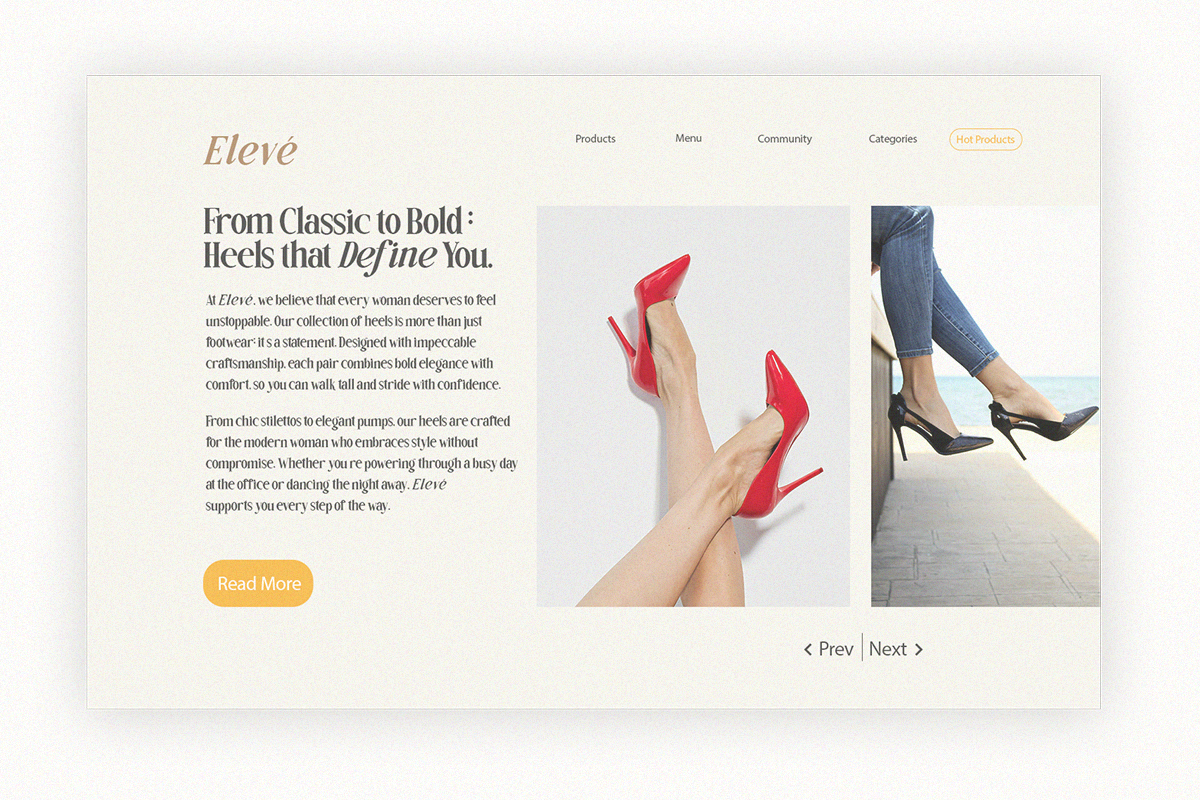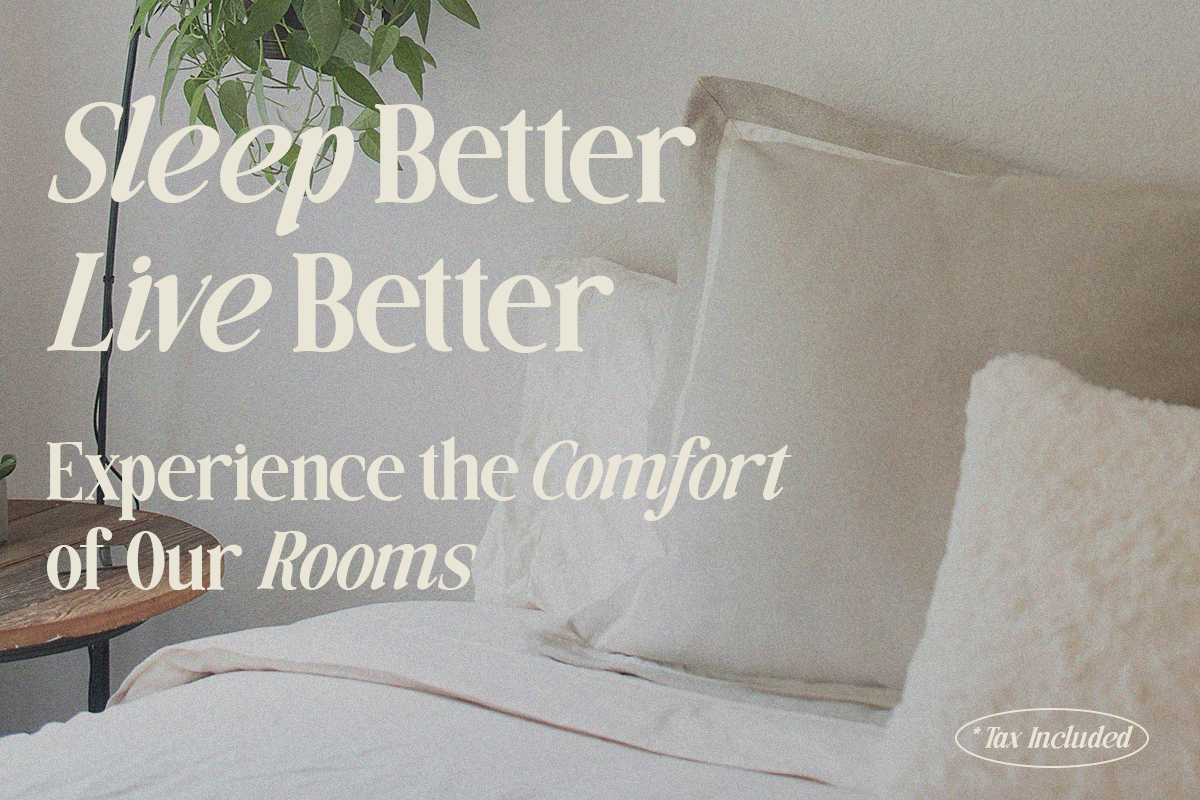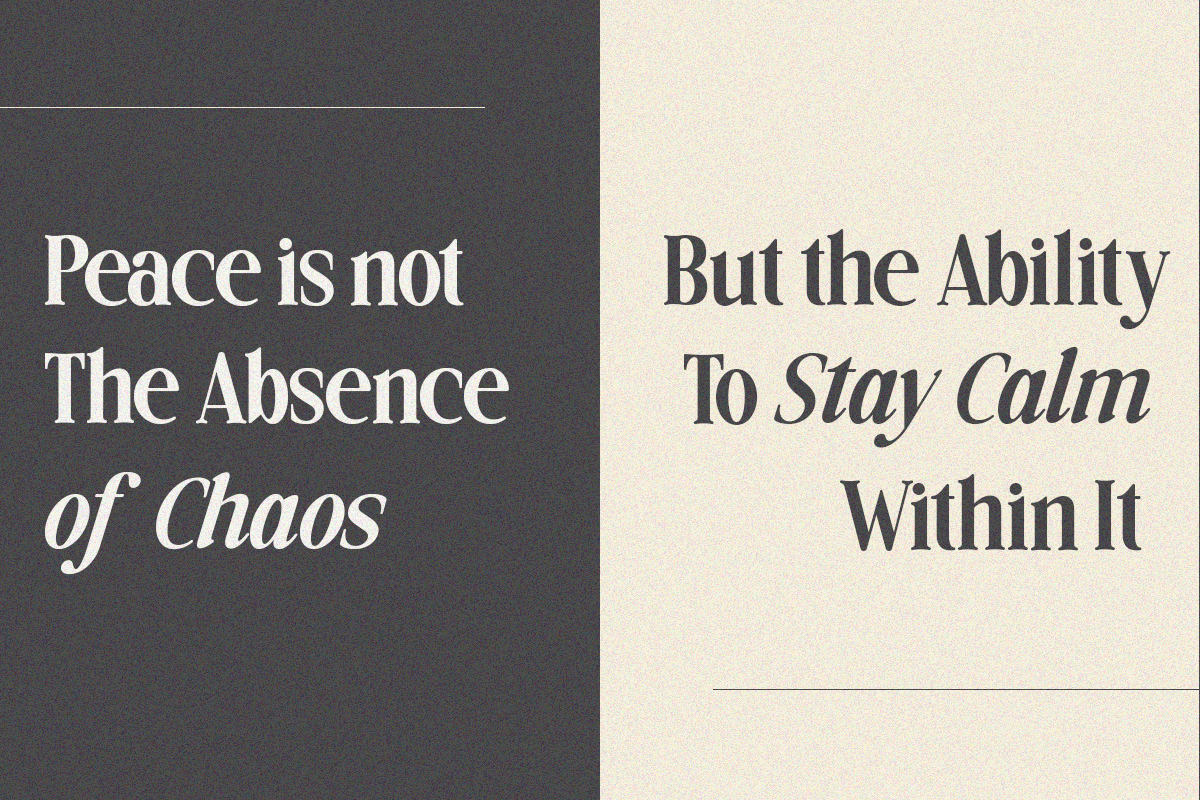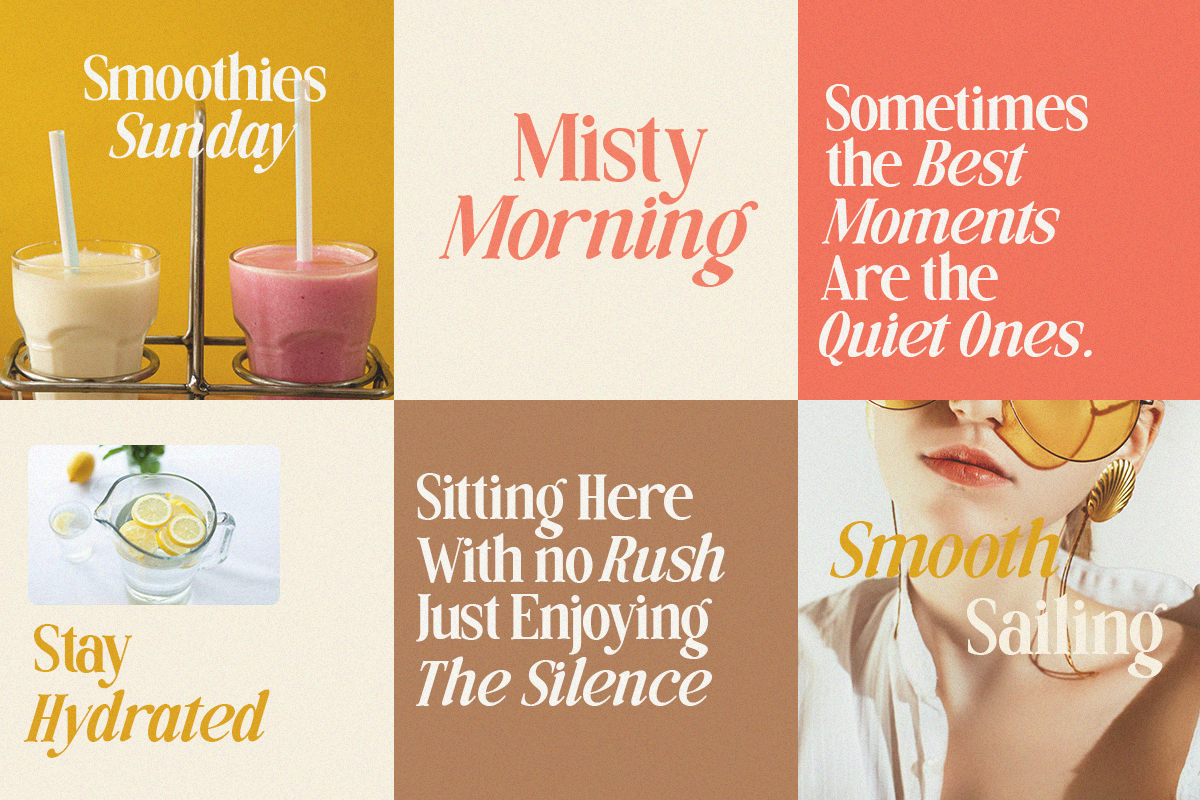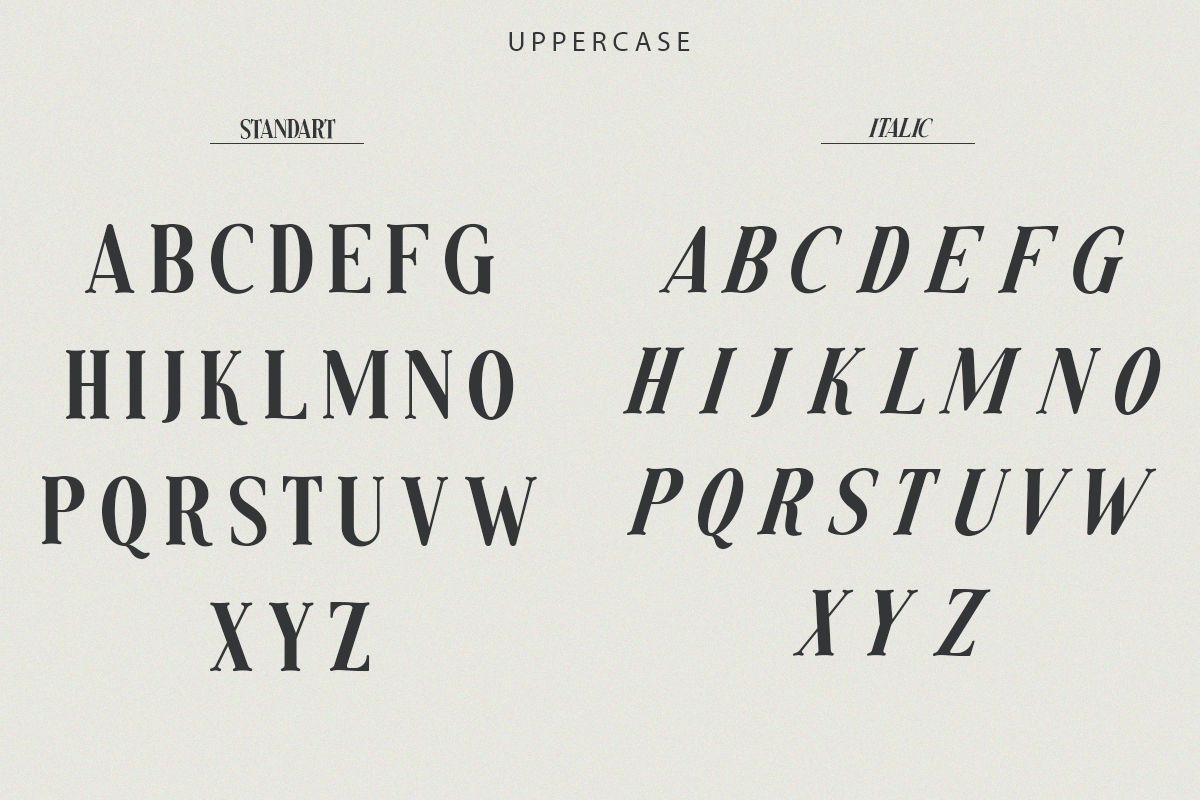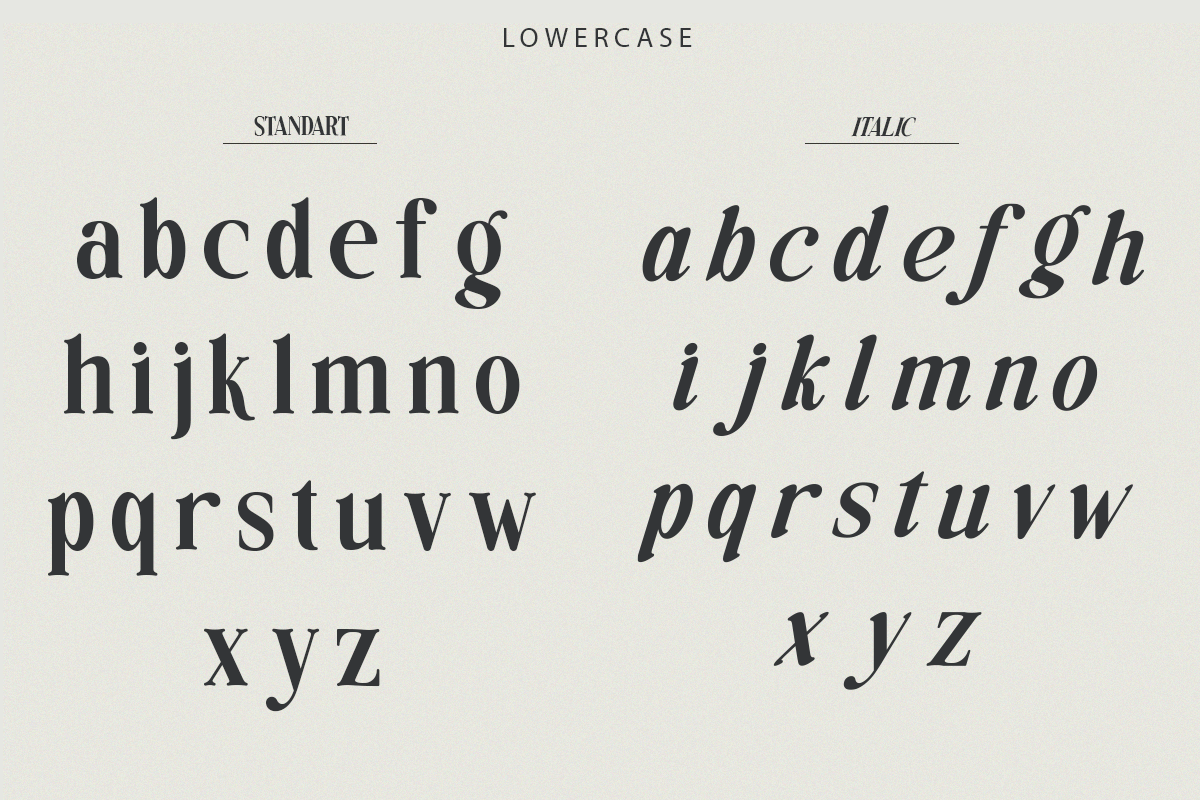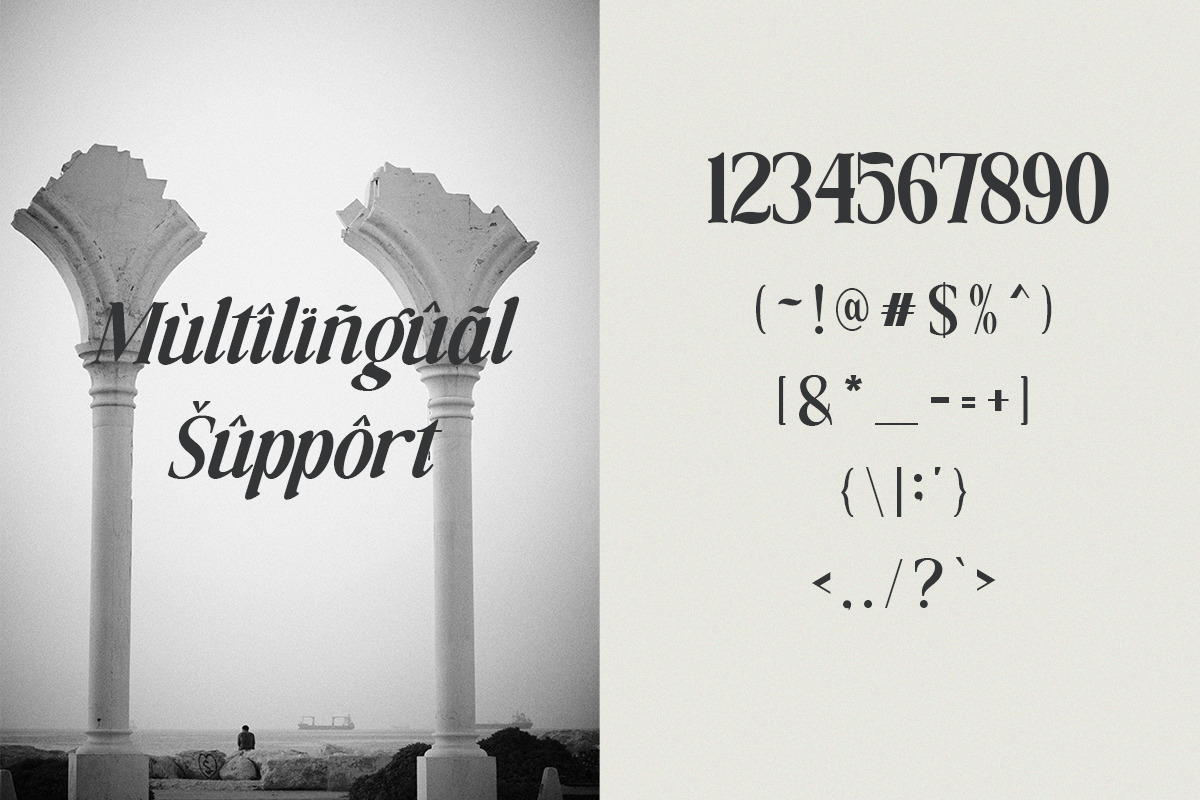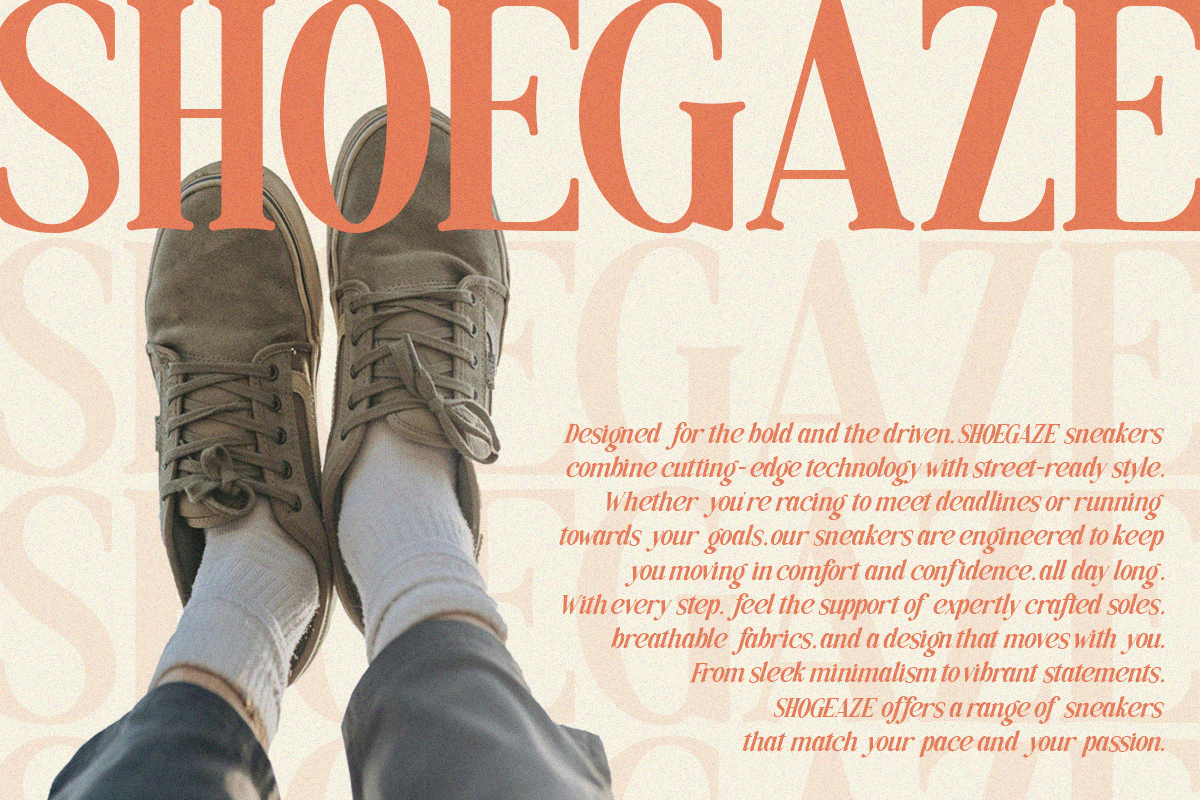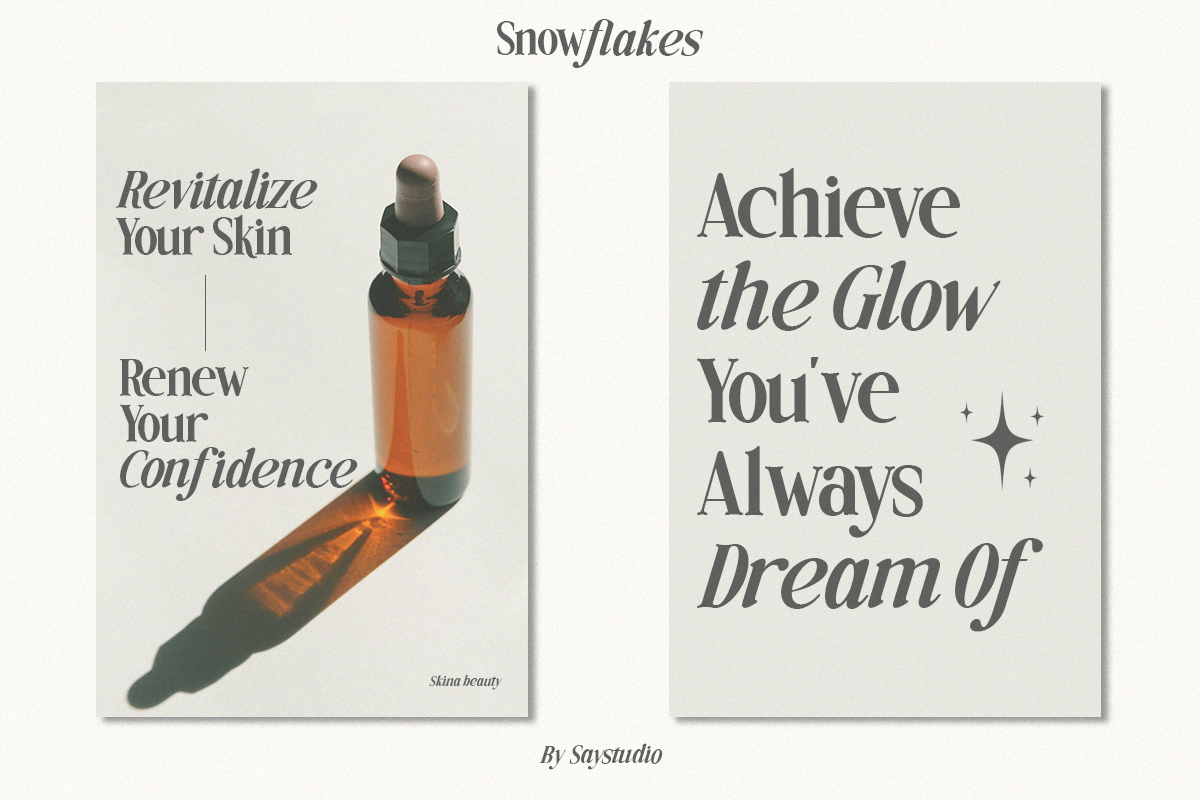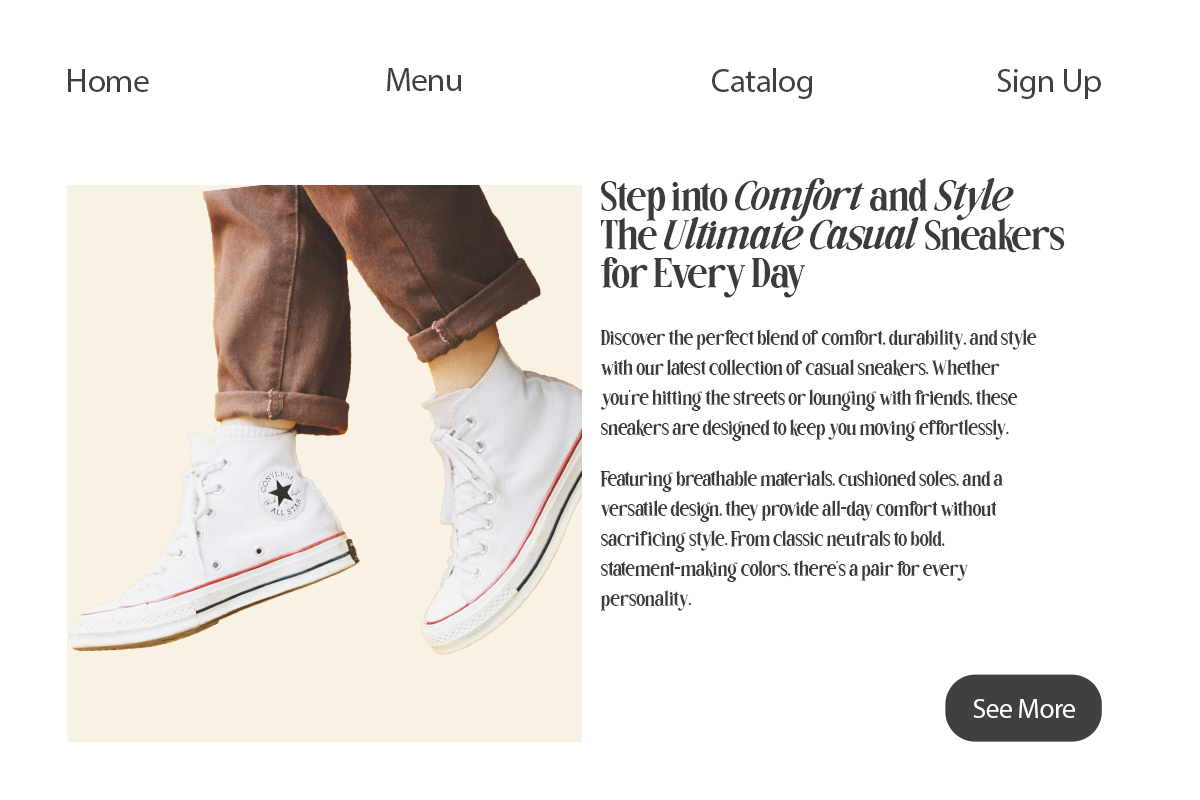
Snow Flakes - Nostalgic Serif Font
Snow Flakes is an nostalgic serif with a feminine style. This beautiful collection comes with regular and italic versions and will instantly add a touch of class to all your design projects. It is a perfect branding font and will help you create logos, wedding designs and all other commercial projects with ease.